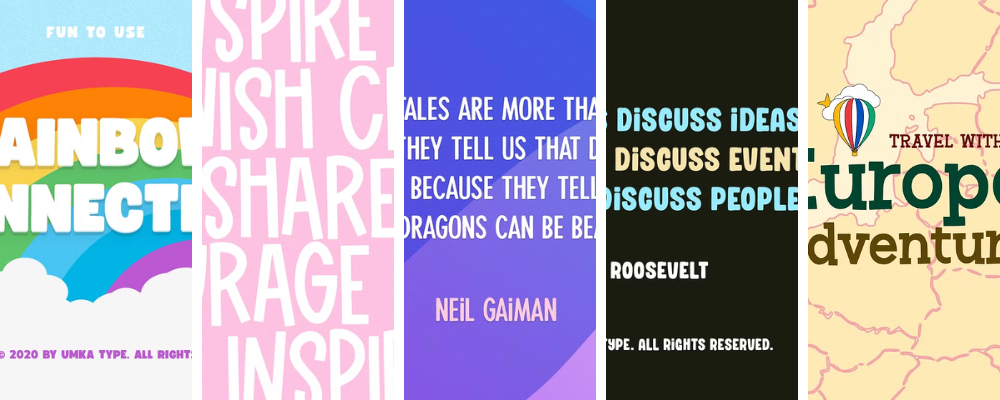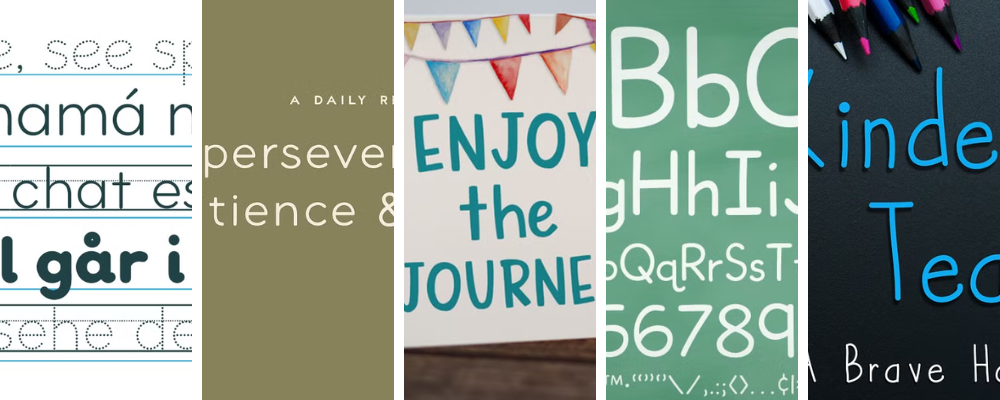
18 Kid Friendly Fonts Every Teacher Should Have
When I was in the classroom, one of my biggest pet peeves was resources with chunky, illegible fonts. šŸ™ƒ My students were learning to read, and the last thing I needed was a font standing in the way. Now, as a website designer, I want to use my font obsession for good. šŸ˜‰Ā
I’m sharing kid-friendly fonts you can use in your classroom resources or classroom decor. These fonts are still fun and playful, but they won’t be the reason your students are struggling to read.
Bold Classroom Fonts
Bold kid friendly fonts for your classroom
These kid-friendly fonts are a bit bold (and a tiny bit daring), but are still easy to read! No looping tails or curling ends will be found here.
Kinderlab – A hand-drawn serif with a bit of character and fun.
Childbook Handwritten – Your school librarian will love this rough, bold, kid-friendly font.
Little Moon – A bubbly font that belongs on the cover of a children’s book.
Miss Kindy – This font screams ā€œkindergarten teacherā€ (in the best way).
Red Hands – A simple-to-read font for your next classroom resource.
Elementary – It’s modern and funky without being difficult to read.
Funtastic – This chunky font is giving recess all day long.
Kid-Friendly Fonts for Worksheets and Resources
Kid friendly fonts for worksheets and resources
I recommend these classroom fonts to anyone creating resources! They’re perfect for worksheets, slide decks, instructions, and more. Never too thin. And never too funky.
Bookbag Complete – A font bundle that’s perfect for letter practice with dotted and lined options.
Meloso – The kind of slim, neat handwriting that would have made your teacher proud.
Dash to School – Dashes, lines, and shadows! It’s everything you need in a classroom font.
My Dear Watson –Ā  A kid-friendly font with a modern twist.
Kindergarten Teacher – It’s skinny, a bit funky, and easy to read.
Primary Penmanship – It’s what you wish your handwriting looked like on the whiteboard.
Playful Fonts for Younger Grades
Playful fonts for younger grades
Just because it’s a student-friendly font doesn’t mean it can’t be fun! These fonts have a bit of playfulness and flair, perfect for classroom decor or big titles on a resource.
Wondertype – Inspired by that kid who’s just learning how to write (but neater).
Jemore – A thick font with a lot of personality.
Foodie Fonts – My very own handwritten font bundle, packed with student-friendly font options.
Perfect Practice – A little bit of curvy fun, but not enough to be illegible.
Fiddlesticks – This font would definitely dot its I’s with hearts.